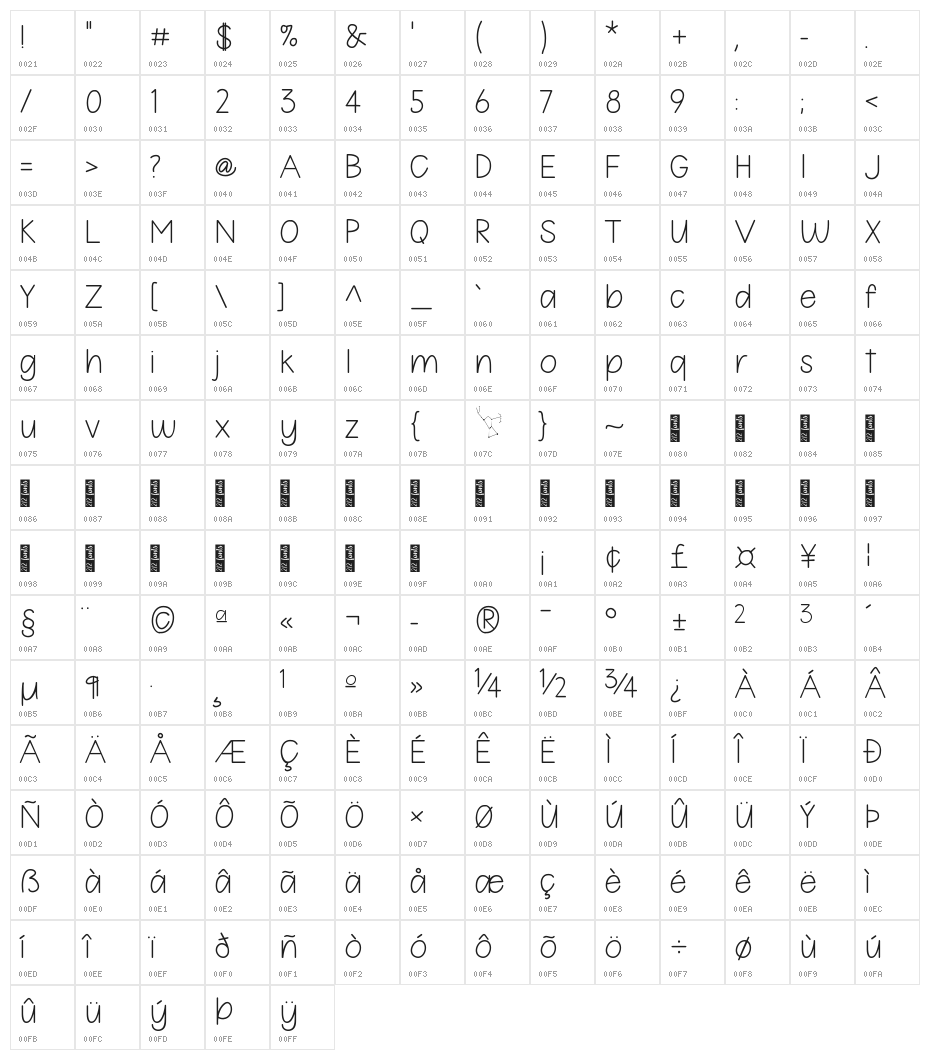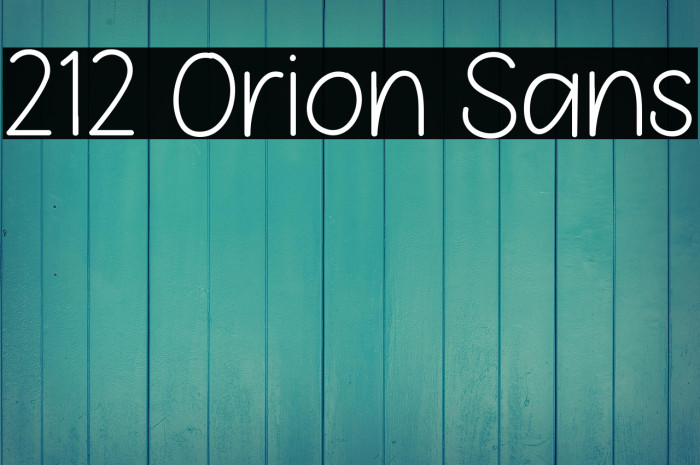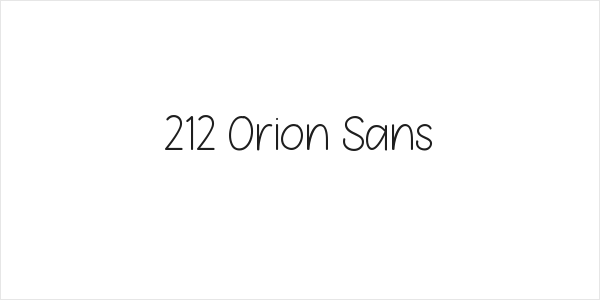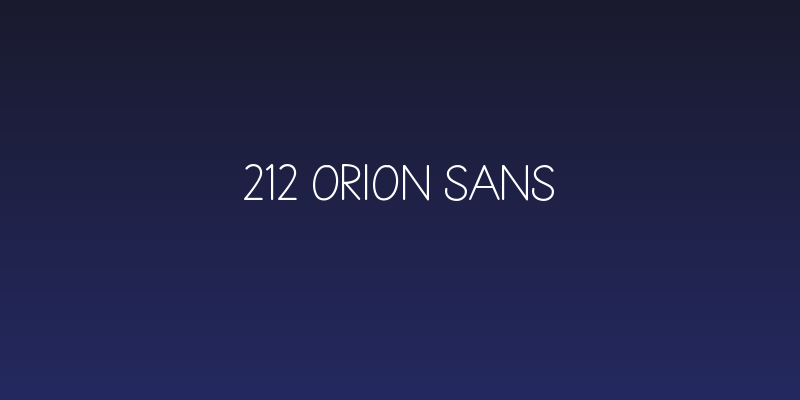
212 Orion Sans Font
212 Orion Sans Description
This font features a clean and modern sans-serif style with a geometric structure. The characters are evenly spaced, providing a balanced and harmonious appearance. The uppercase letters are tall and slightly narrow, while the lowercase letters maintain a consistent height, contributing to a uniform look. The numerals are straightforward and align well with the overall design, making them easy to read. The special characters are designed to match the simplicity and clarity of the alphabet, ensuring a cohesive visual experience. This font is versatile and can be used in various design contexts.